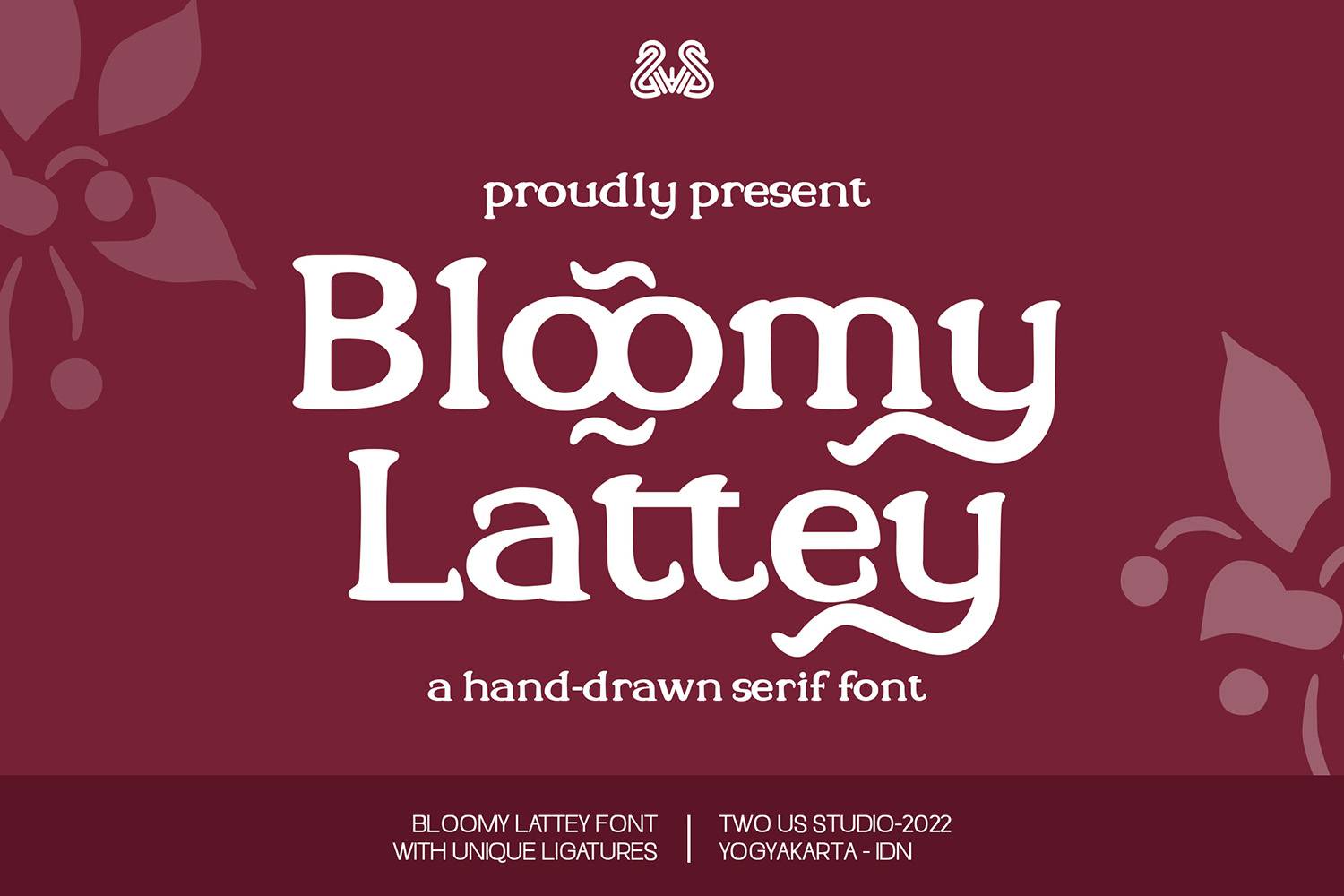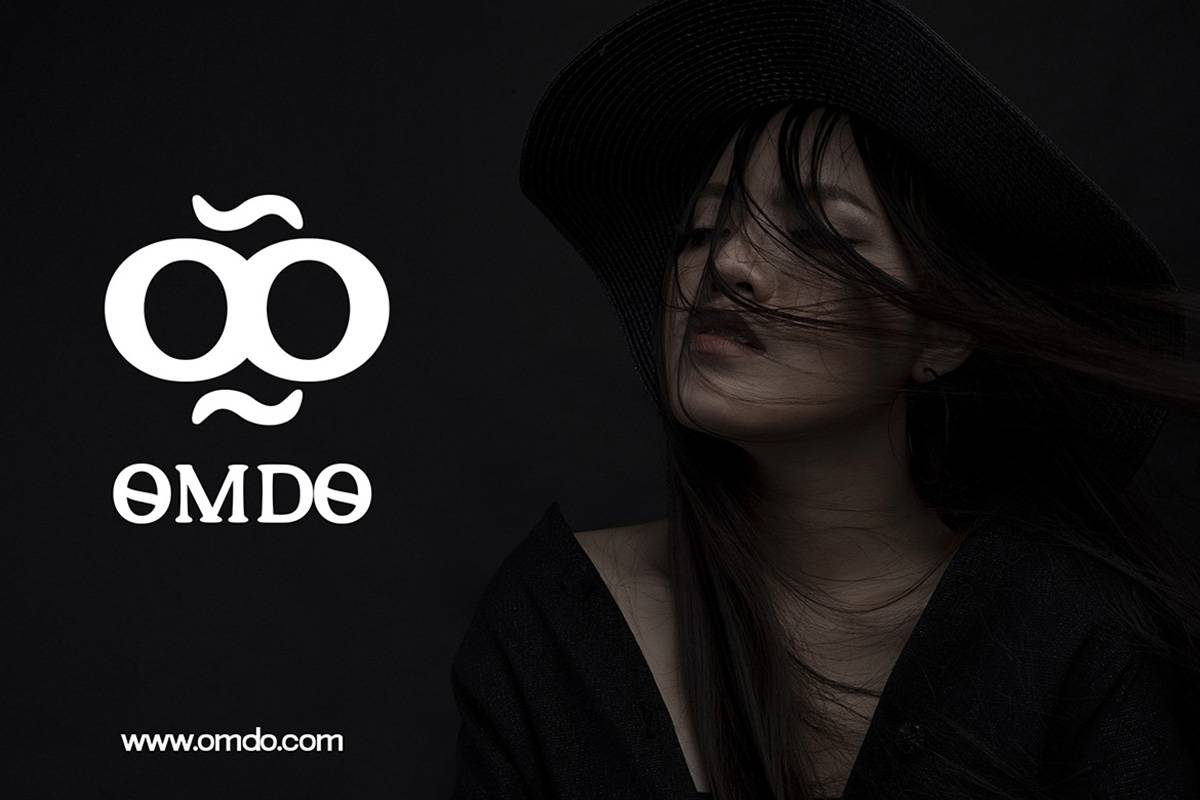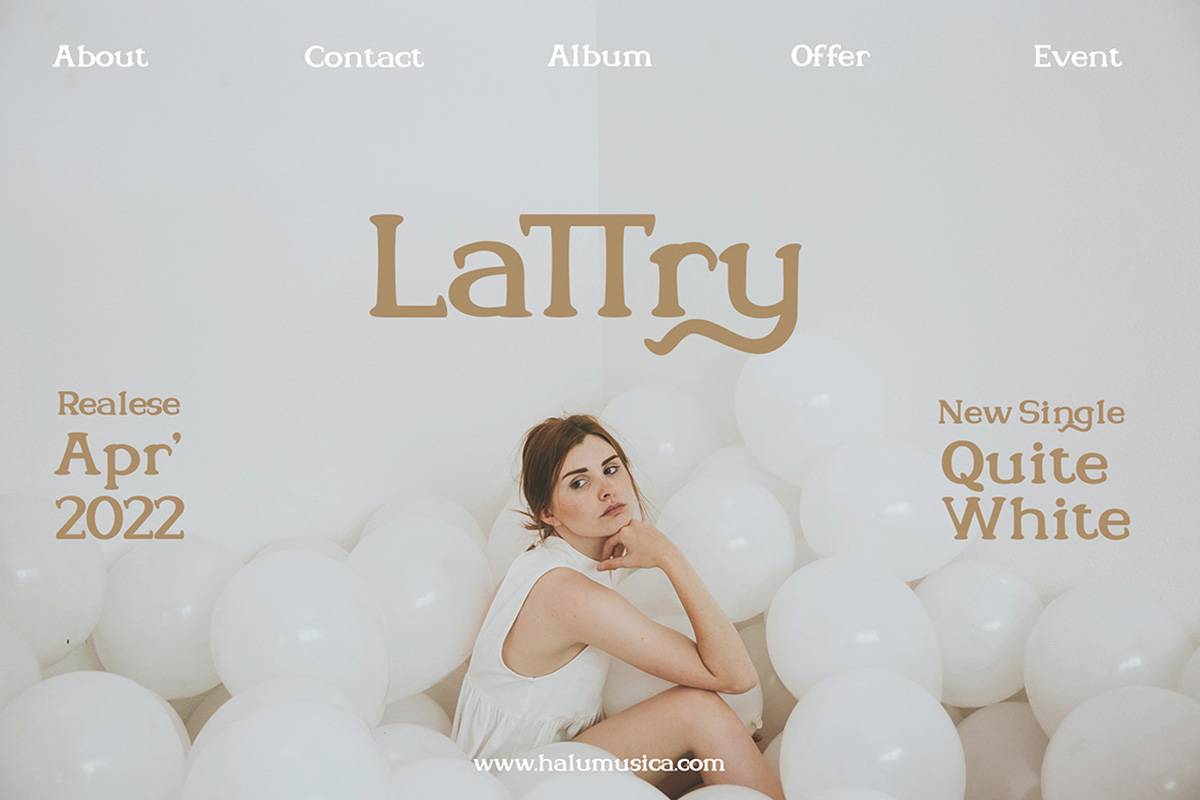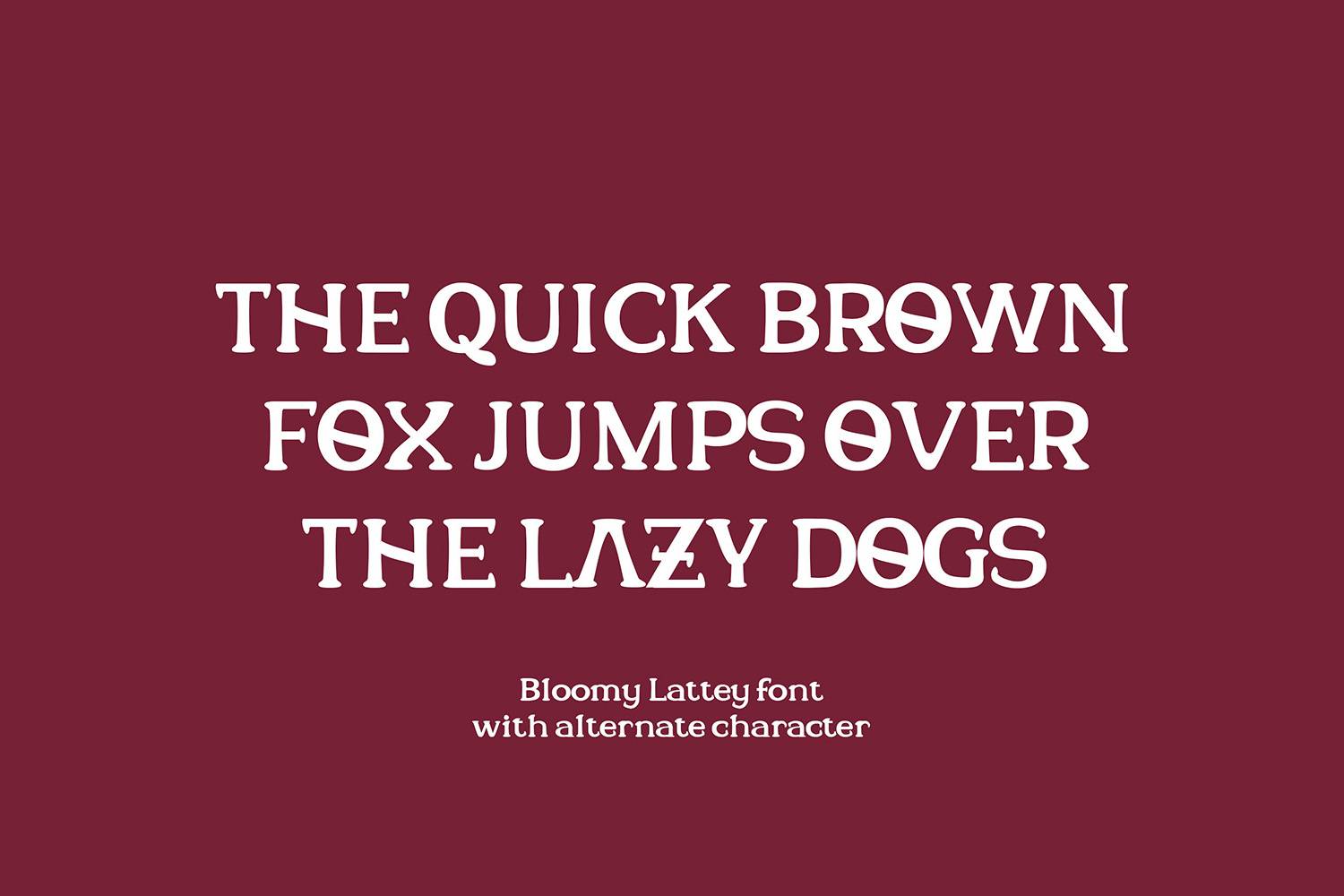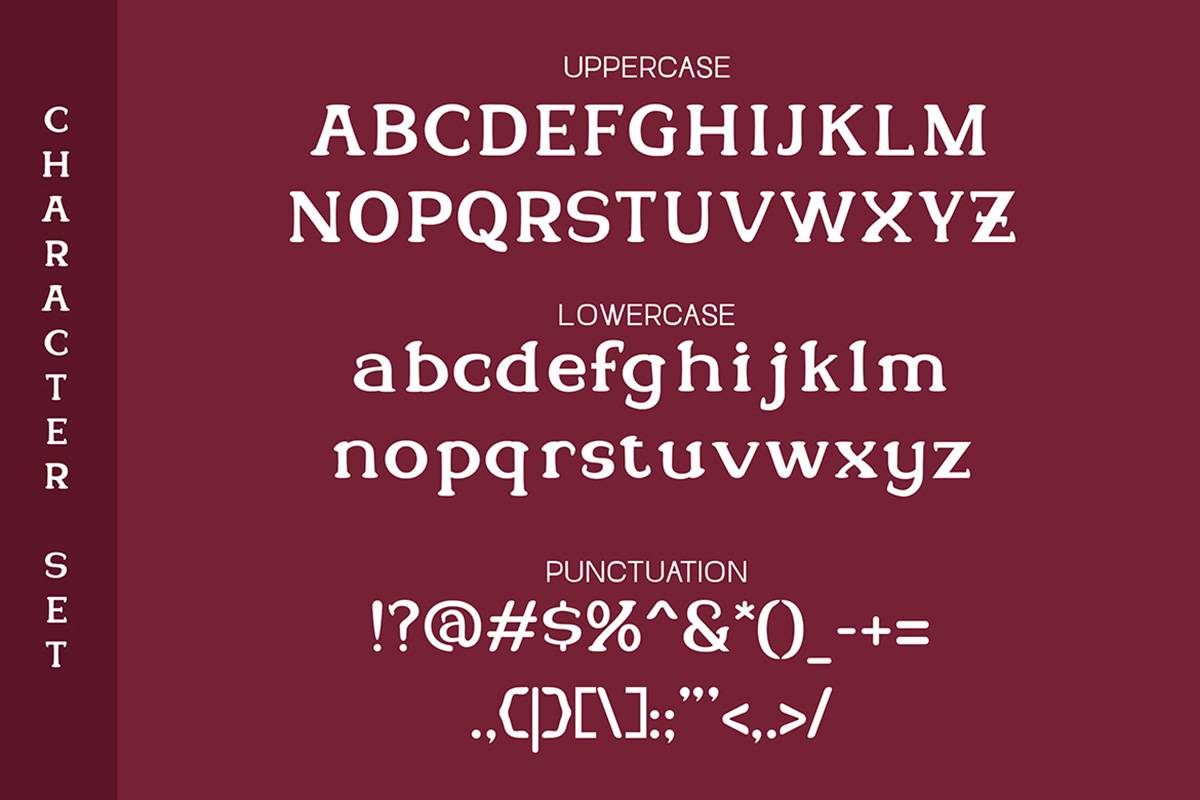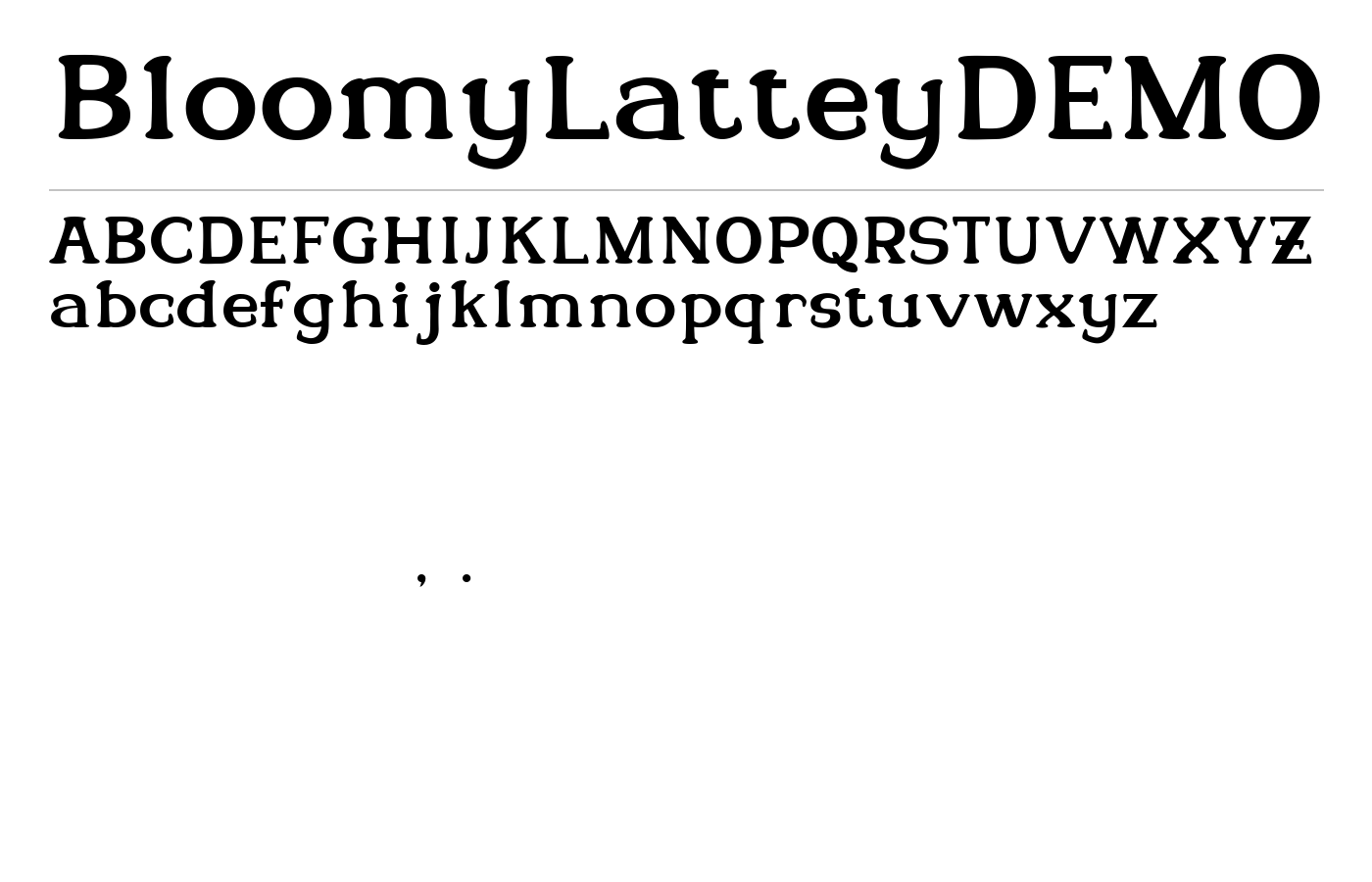
Bloomy Lattey is a charming serif font with a warm, handcrafted feel, featuring moderate stroke contrast and gently rounded serifs that add a friendly, approachable character. Its balanced proportions and clear readability make it suitable for branding, editorial projects, and packaging that seek an inviting yet refined aesthetic. This font works well for designs aiming to combine classic elegance with a touch of casual personality.
Bloomy Lattey Font
| Designer | Two Us Studio |